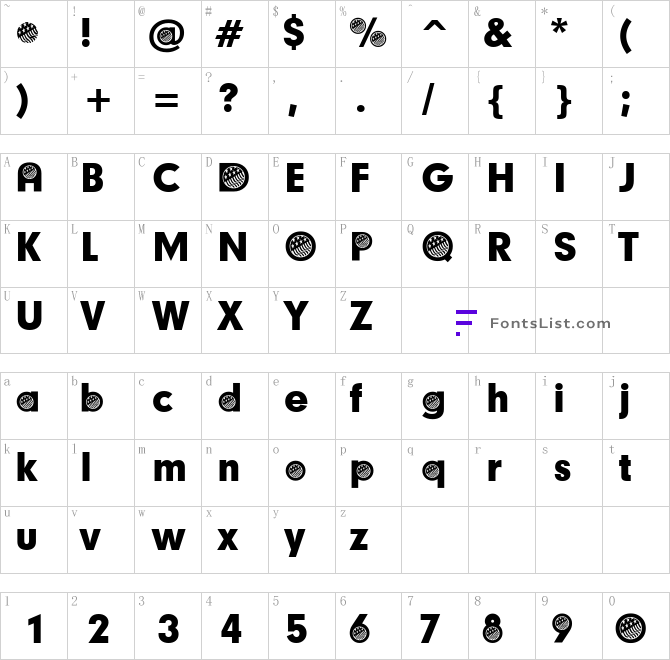
- Font Name:American Participants
American-Participants.ttf is a very beautiful artistic font, American-Participants.ttf is widely used in the design and printing of various books and pictures,American-Participants.ttf has a strong visual impact,American-Participants.ttf is a commonly used font in newspapers, magazines and books, and is used in posters, e-commerce Poster design, store design, logo design, font design and other fields.American-Participants.